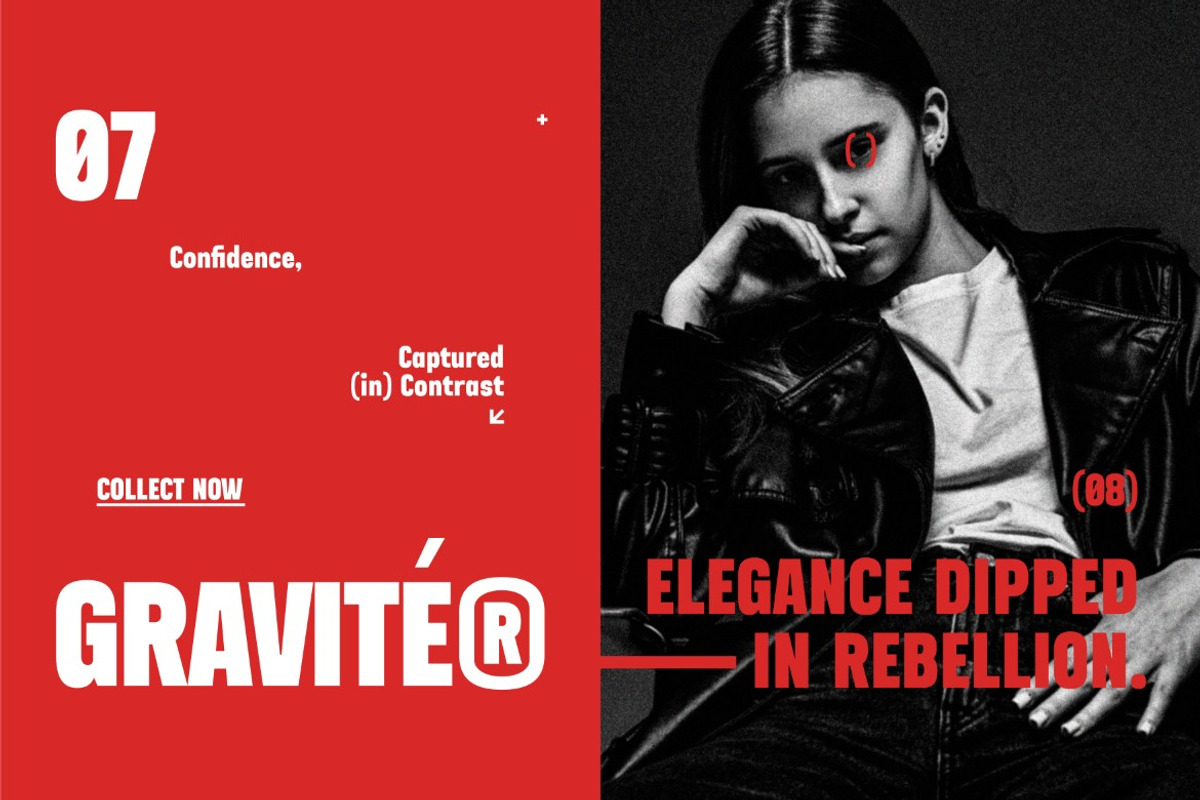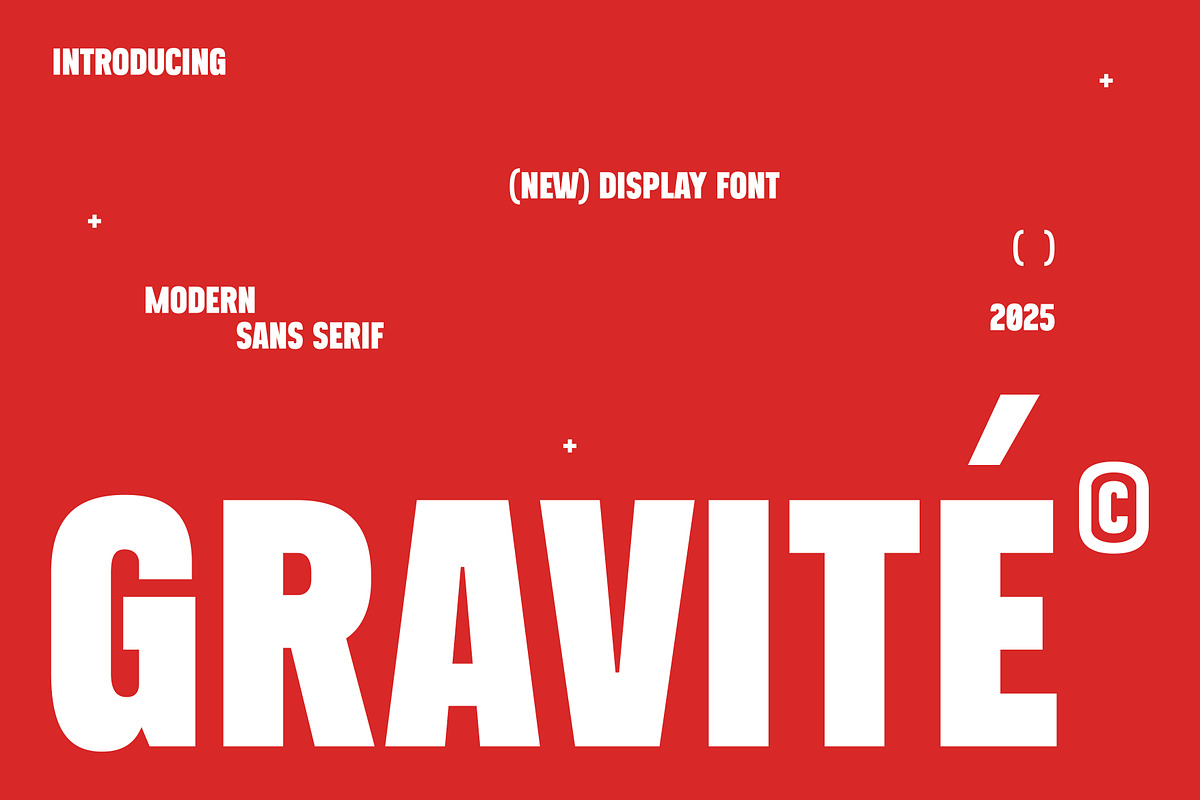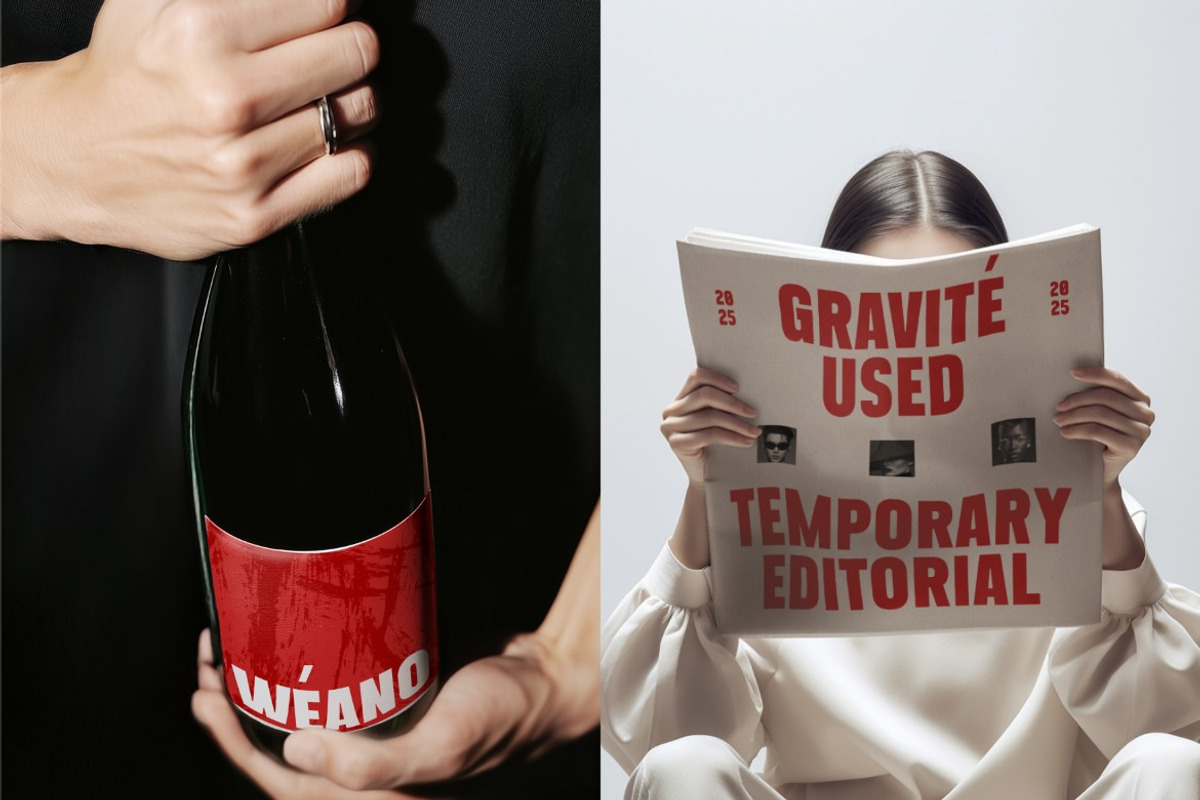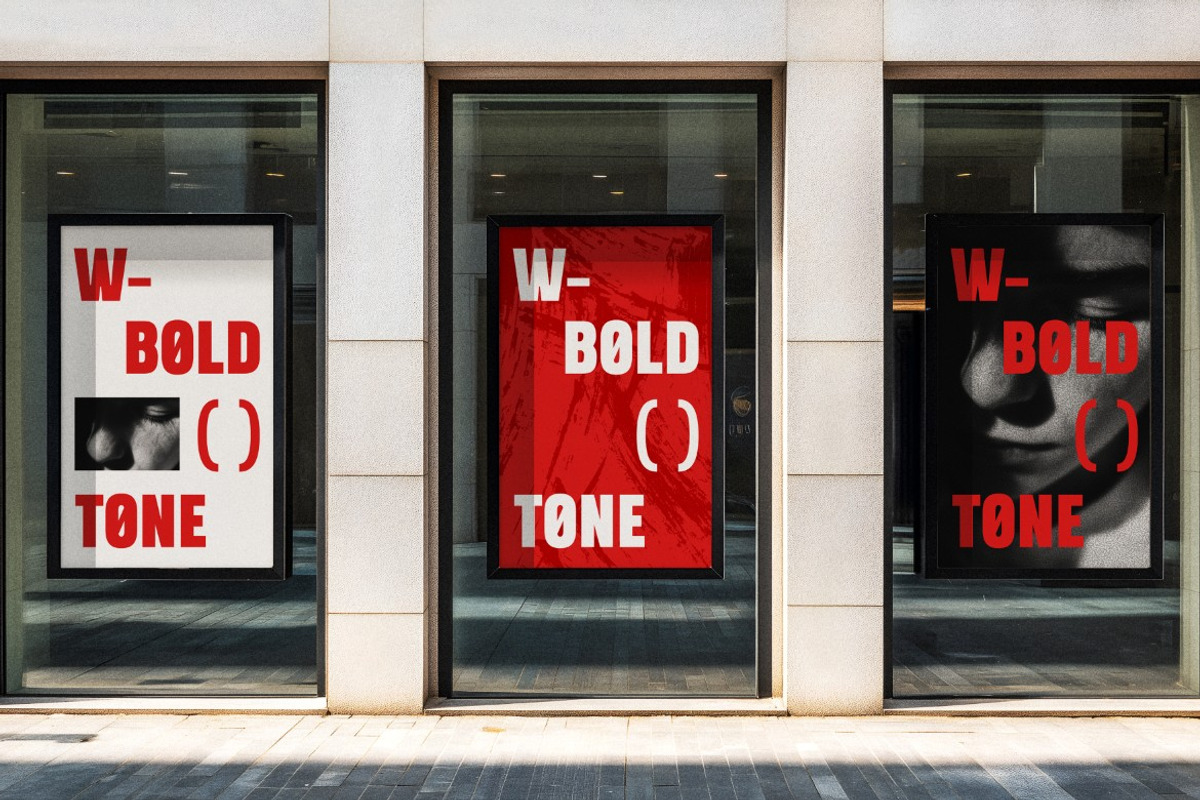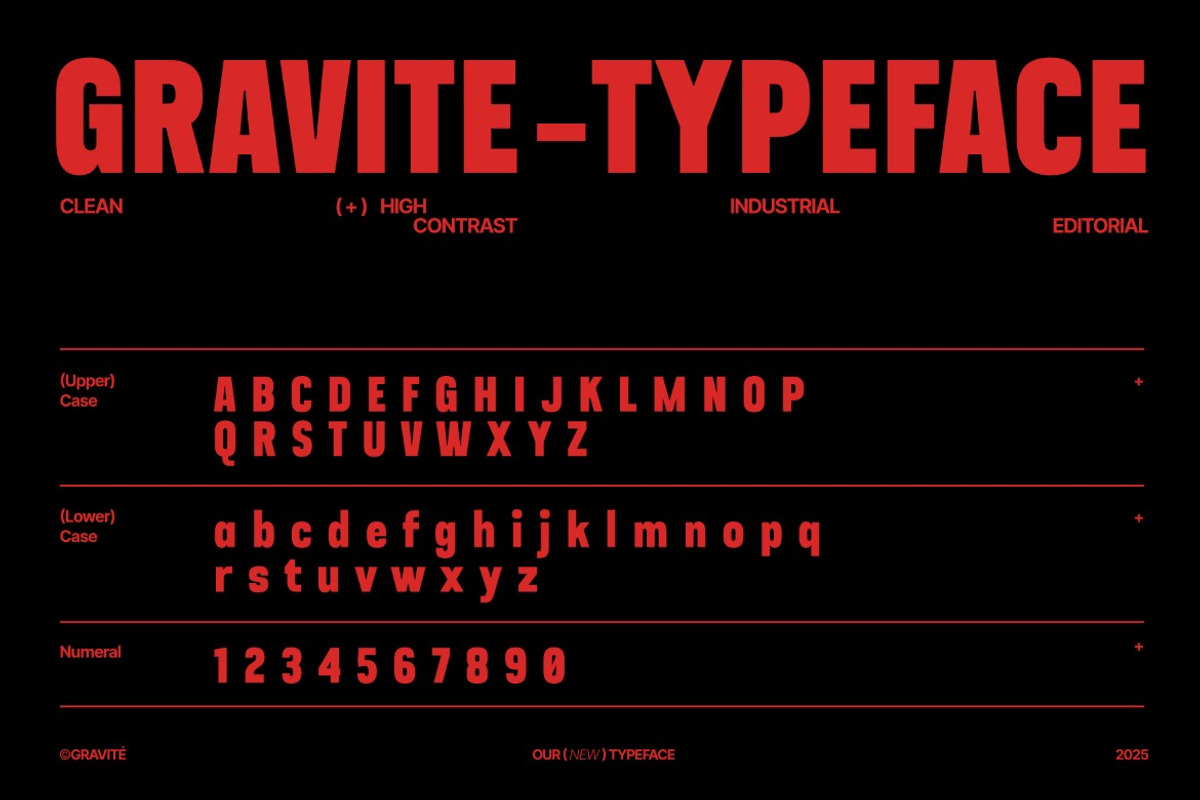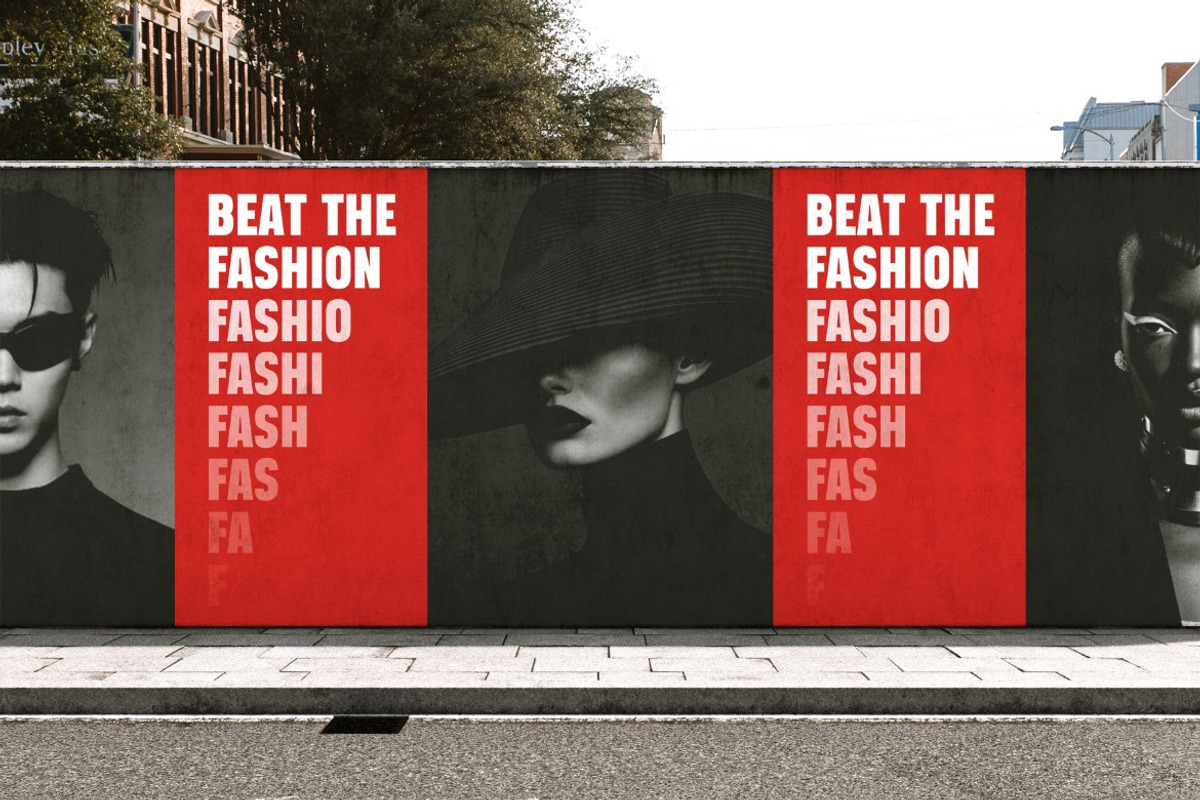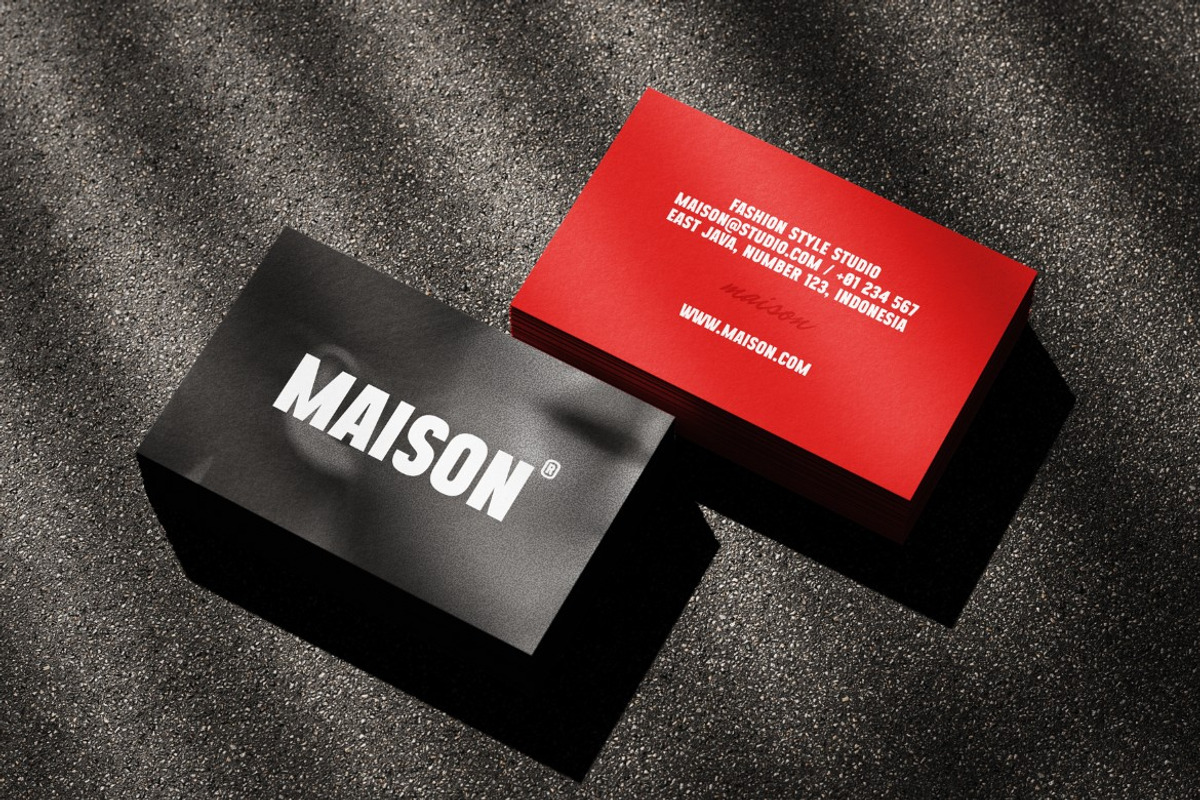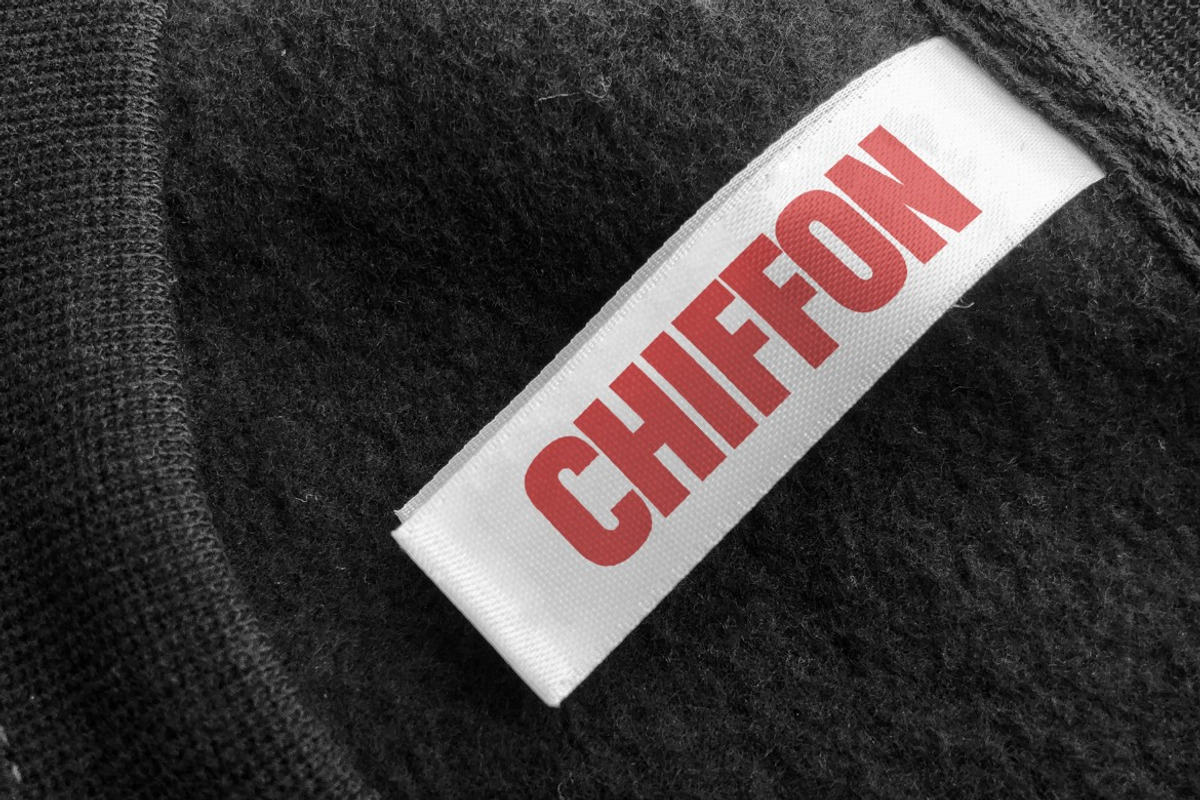
Gravite
Gravité is a modern and bold sans-serif display font, designed for headlines, branding, posters, and impactful digital layouts. Its tall and confident letterforms deliver a strong visual presence, making every design look sharp and contemporary. Perfect for creative projects that require clarity, power, and minimalist style with an impressive editorial touch.